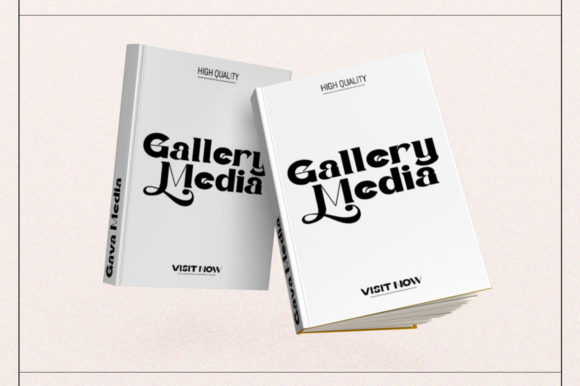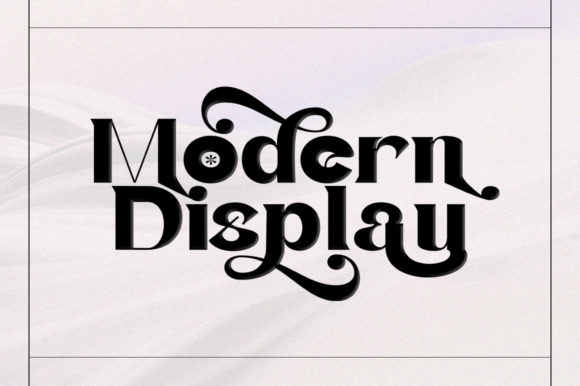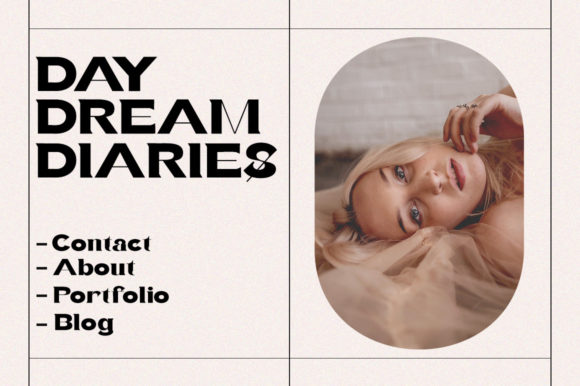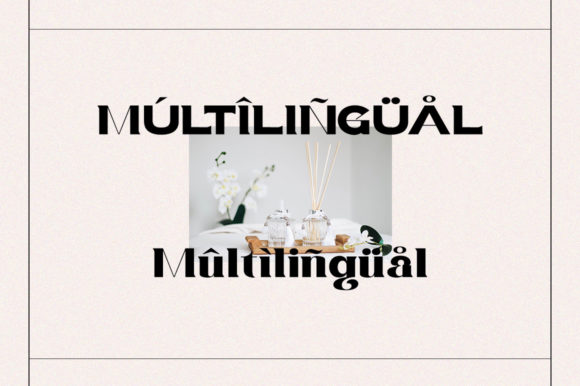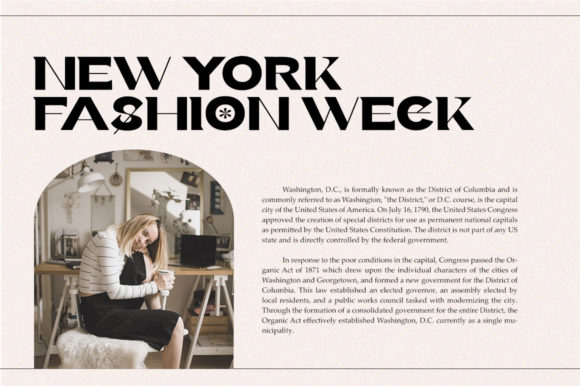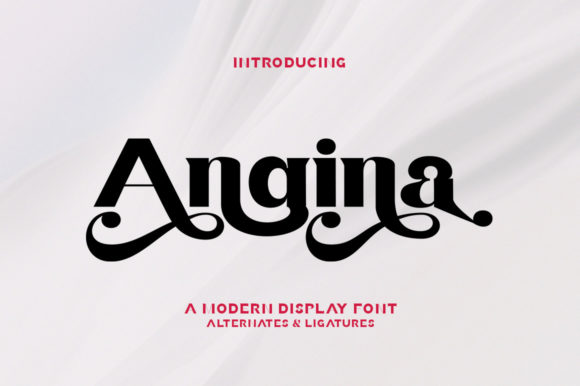
Introducing Angina Font: The Ultimate Serif Font for Stunning Designs
Are you tired of using the same old fonts for your designs? Look no further! Angina Font is here to revolutionize your creative projects with its luxurious, bold, and versatile serif style. In this article, we’ll dive into the features and benefits of Angina Font, and explore how it can elevate your designs to the next level.
What is Angina Font?
Angina Font is a serif font that exudes elegance and sophistication. Its bold and luxurious style makes it perfect for designers and crafters looking to create stunning visual content. Whether you’re working on a branding project, packaging design, or digital artwork, Angina Font is sure to make a statement.
One of the standout features of Angina Font is its PUA (Private Use Area) encoding. This means that you can access all the glyphs and swashes with ease, giving you unparalleled creative control. With PUA encoding, you can effortlessly navigate through the font’s extensive character set, including ligatures, alternates, and ornaments.
Angina Font is incredibly versatile, making it suitable for a wide range of design applications. From luxury brands to creative agencies, and from digital media to print materials, this font can adapt to any style or theme. Its versatility is unmatched, allowing you to experiment with different design concepts and push the boundaries of your creativity.
Key Features of Angina Font
• Luxurious and bold serif style: Angina Font boasts a sophisticated and elegant design that’s sure to impress.
• PUA encoded: Easy access to glyphs, swashes, and other special characters.
• Versatile: Suitable for a wide range of design applications, from branding to digital art.
• High-quality design: Carefully crafted to ensure optimal legibility and aesthetic appeal.
How to Use Angina Font in Your Designs
Tips and Tricks for Getting the Most Out of Angina Font
To unlock the full potential of Angina Font, try the following tips and tricks:
• Experiment with different font sizes: Angina Font looks stunning in large sizes, but it also works beautifully in smaller sizes.
• Play with glyphs and swashes: Use the font’s extensive character set to add unique touches to your designs.
• Pair it with other fonts: Angina Font works well with other serif and sans-serif fonts, creating interesting and dynamic typography.
Angina Font is a game-changer for designers and crafters looking to elevate their creative projects. Its luxurious, bold, and versatile serif style, combined with PUA encoding, makes it an essential tool for anyone looking to create stunning visual content. With its high-quality design and ease of use, Angina Font is sure to become a favorite in your font collection.